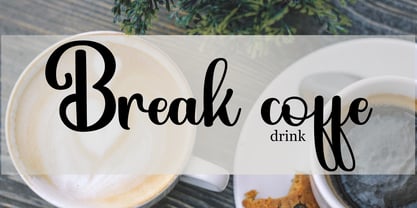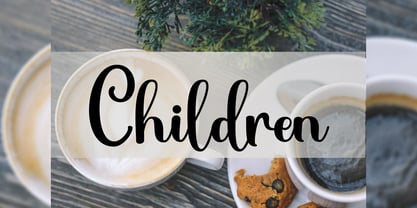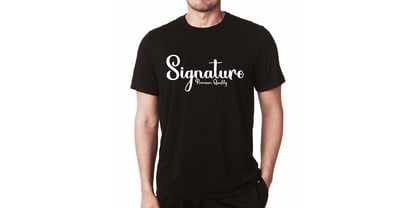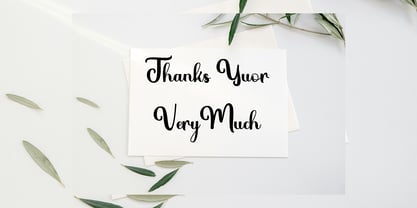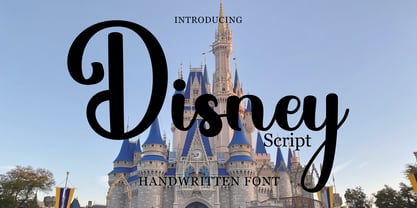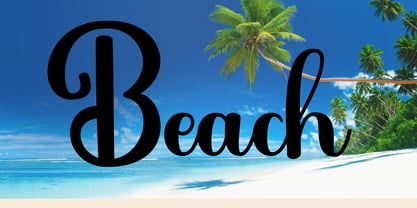
Disney Script
Die Schriftfamilie Disney Script wurde von Ata Illah entworfen und von Naiza Studio veröffentlicht. Disney Script enthält 1 Stile.
Introducing “Disney,” an enchanting cursive font with a handwritten flourish. Featuring a tender and fluid design, it lends a beautiful balance to a myriad of creative outputs. Infuse your projects with a playful yet romantic ambiance that makes any design stand out. Ideal for distinctive branding and exquisite logos, this font can add an elegant touch to wedding essentials and heartfelt greeting cards. Disney splendidly complements fashion lookbooks and marketing promotions by conveying luxury, elegance, and a dash of relaxed sophistication. Take your design aesthetics from ordinary to extraordinary with the charming subtlety of Disney.